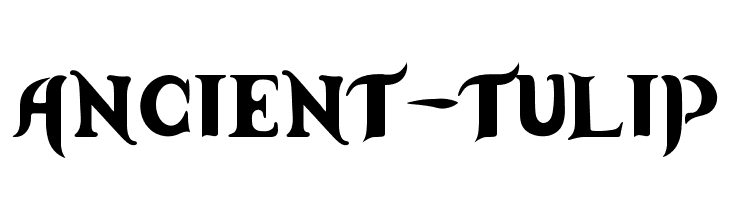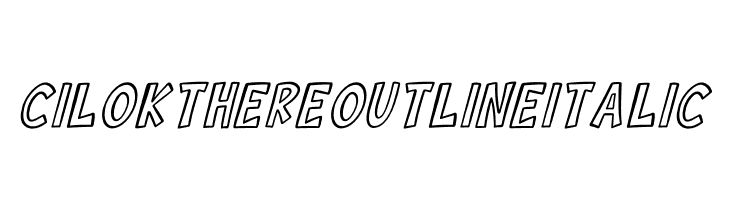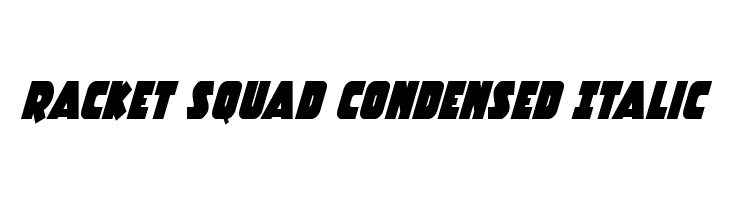
A bold, dramatic font with angular serifs and sweeping strokes.
( Eric Schneider )
A playful, handwritten-style font with bold, dynamic strokes.
( Måns Grebäck - www.mansgreback.com )
An edgy, graffiti-inspired font with dynamic curves and sharp angles.
A bold, futuristic font with a 3D outline effect and geometric design.
( Fonts by twinletter )
A bold, decorative font with unique embellishments and a playful edge.
A modern, geometric font with clean lines and balanced spacing.
A bold, textured font with a frosty, distressed appearance.
( Samah Quadri )
A bold, geometric font with sharp, angular cuts and a futuristic style.
A bold, halftone-patterned font with a modern and dynamic style.
A futuristic, geometric font with consistent stroke width and angular design.